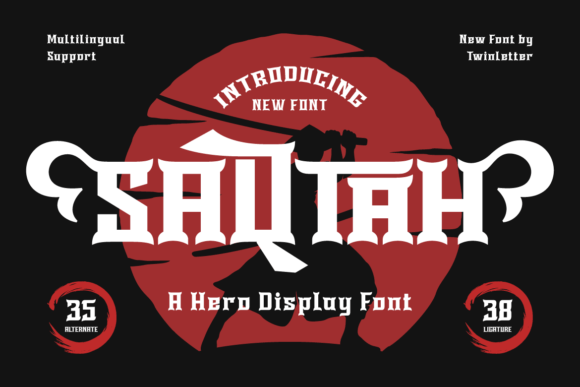
In a cosmos teeming with fonts, Saqtah emerges as a celestial wonder, a display font architected with a superhero's might. Its every glyph radiates strength and audacity, promising to infuse your projects with an aura of invincibility and valor. Whether you're embarking on a cinematic odyssey, a captivating game, or a design quest with a bold narrative, Saqtah stands as your unwavering ally.
As you craft your digital masterpiece, Saqtah will be your steadfast companion, ensuring that your message not only captivates but also reverberates with power and resonance. Its bold strokes and unwavering thickness command attention, making it the epicenter of every design it graces.
Beyond its captivating aesthetics, Saqtah unveils a trove of extraordinary features that empower you to transcend the boundaries of creativity. Alternate ligatures and a diverse repertoire of characters dance together, orchestrating typographic symphonies that are both distinctive and enthralling.
In a globalized digital landscape, Saqtah's multilingual prowess shines as a beacon of inclusivity. Its characters gracefully adapt to a multitude of tongues, ensuring that your message transcends linguistic barriers and reaches audiences across continents.
Choose Saqtah as your digital champion, and watch as your project ascends to new heights of greatness. Its inherent strength and audacity will leave an enduring mark on your audience, cementing your status as a creative visionary.